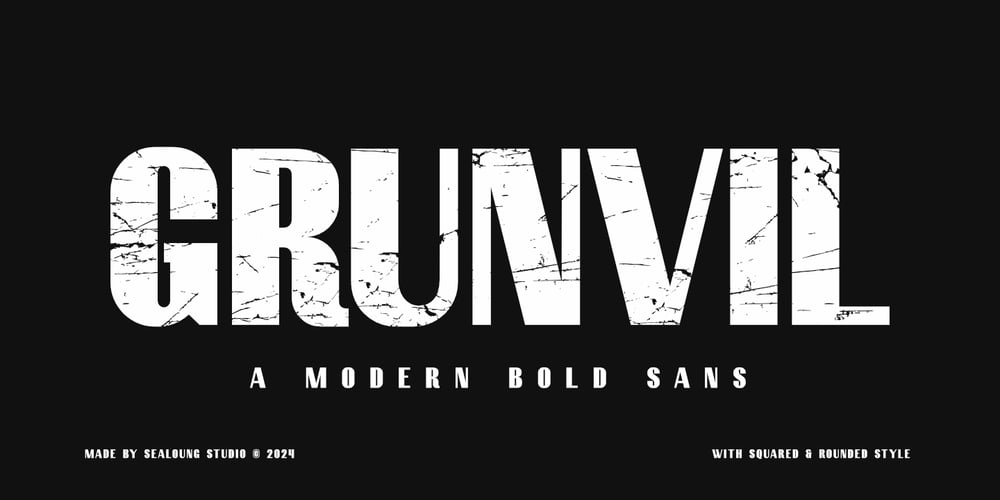
Grunvil Font Family was designed by Saiful Anwar and published by Sealoung. Grunvil contains 4 styles and family package options. Introducing Grunvil – Modern Bold Sans with Grunge StyleElevate your designs with Grunvil, the ultimate font that combines modern boldness with a gritty, grunge twist. Perfect for making a strong statement, this versatile typeface features clean lines and robust characters, enhanced by an alternative set that adds a rugged, distressed texture.Features: Bold and Impactful: Stand out with thick, solid letters that command attention and convey strength. Grunge Alternate Style: Switch up your design with an alternate set of characters featuring a rough, textured finish for a raw, urban look. Versatile Use: Ideal for posters, headlines, branding, and more, Grunvil adapts to a variety of design needs. Easy to Read: Despite its boldness, this font maintains clarity and readability, ensuring your message is always clear. Perfect For: Streetwear brands Sport and Racing Music album covers Event posters Urban-themed designs Modern logos Unleash the power of Grunvil and bring a bold, edgy vibe to your next project. This font is designed to make your text not just read, but felt.I hope this font meets your needs!